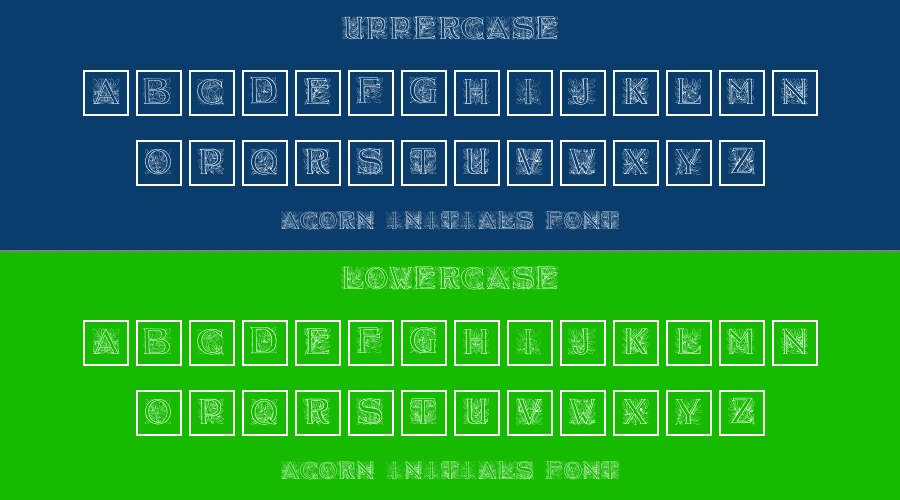
About Acorn Initials Font
Acorn Initials Font represents a sophisticated approach to type design, balancing geometric serifs with visual appeal. Perfect for digital interfaces, this font family showcases impressive consistency and visual authority throughout its character set. Designers appreciate its versatility and reliability.
Designers will appreciate nuanced touches including rhythmic patterns and arrow sets, adding sophistication to any project. These features become apparent in creative titles, where data presentation matters most. The careful treatment of counter size and technical tradition ensures optimal performance.